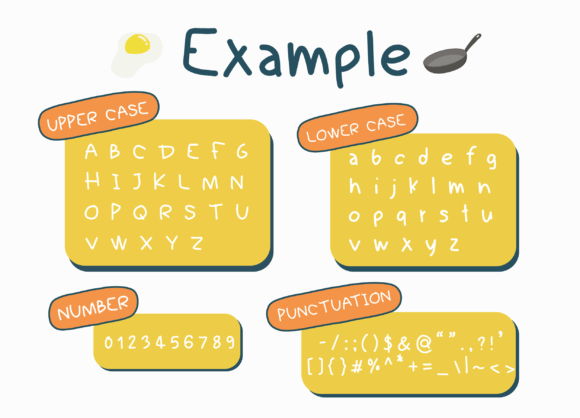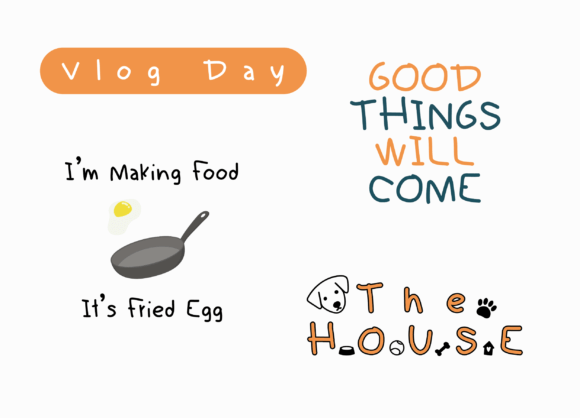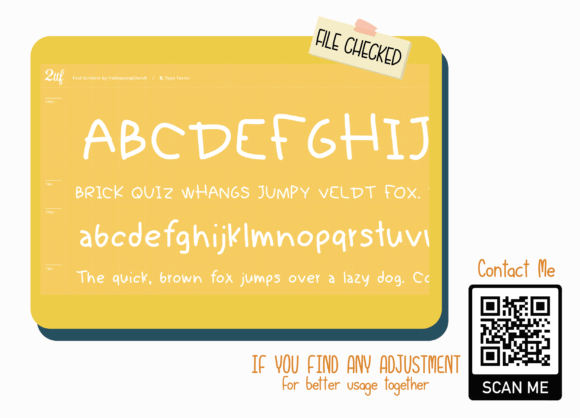
The Ultimate Guide to Fast Scribble Font: Adding a Rush of Energy to Your Designs
I’ll never forget the morning I stumbled upon the Fast Scribble Font. I was working on a project for a client who needed a fun, energetic font to capture the spirit of a busy breakfast routine. As I scrolled through my font library, I felt like I was in a rush, just like the morning I was trying to convey. That’s when I discovered Fast Scribble Font, and it was love at first sight! ✨
Honest Review: What I Love (and a Few Quirks)
Here’s what I love about Fast Scribble Font:
- ✅ Dynamic and playful: This font screams energy and movement, making it perfect for designs that need a lively touch.
- ✅ Perfect for kid-friendly projects: The scribble-inspired letters are whimsical and fun, making it an excellent choice for projects targeting children or families.
- ✅ Conveys a sense of urgency: The font’s hasty, scribbled appearance effectively captures the rush of a busy morning, making it ideal for breakfast-themed designs.
And, a few quirks to consider:
- ⚠️ Legibility at small sizes: While the font looks great at larger sizes, it can become a bit tricky to read at smaller sizes. Make sure to test it in your design before finalizing.
- 🤔 Limited use cases for formal designs: Due to its playful nature, Fast Scribble Font might not be the best fit for formal or professional designs. Stick to projects that can showcase its fun personality.
One of the best things about Fast Scribble Font is its OpenType features and glyphs. These allow you to customize your text with:
- Swashes and stylistic alternates
- Glyphs for special characters and icons
- Stylistic sets for varied font styles
Experiment with these features to make your text truly unique and eye-catching.
The Designer Inspiration Behind Fast Scribble Font
According to its creator, Fast Scribble Font was inspired by the chaos of a busy morning. The designer wanted to capture the energy and rush of getting ready for the day, while also conveying a sense of playfulness and fun. The result is a font that’s perfect for designs that need a lively, dynamic touch.
Q: What type of projects is Fast Scribble Font best suited for?
A: Fast Scribble Font is perfect for kid-friendly projects, breakfast-themed designs, and any project that needs a playful, energetic touch.